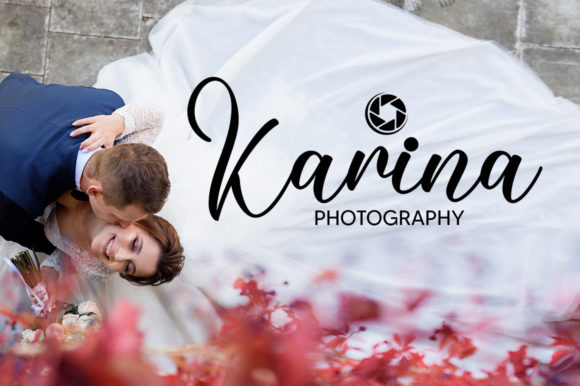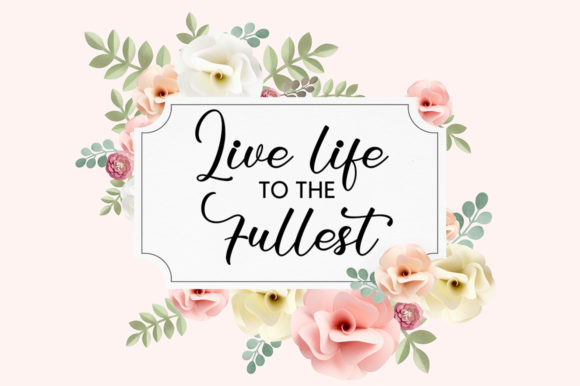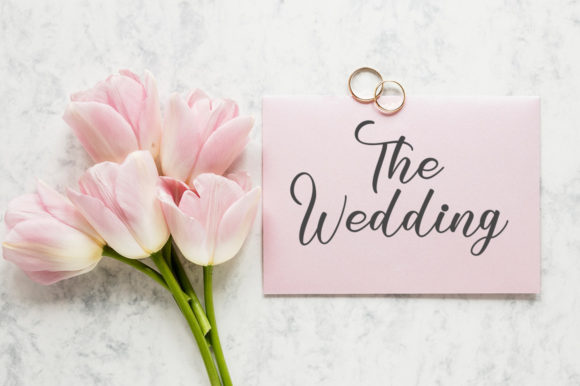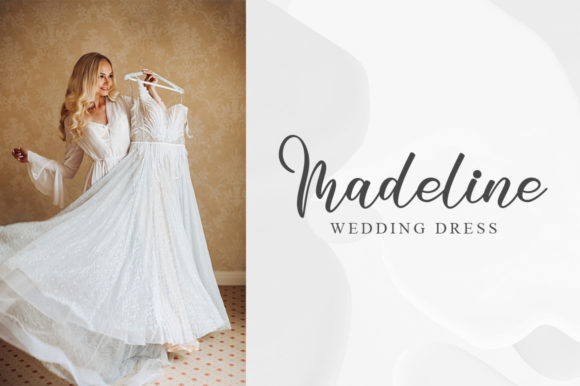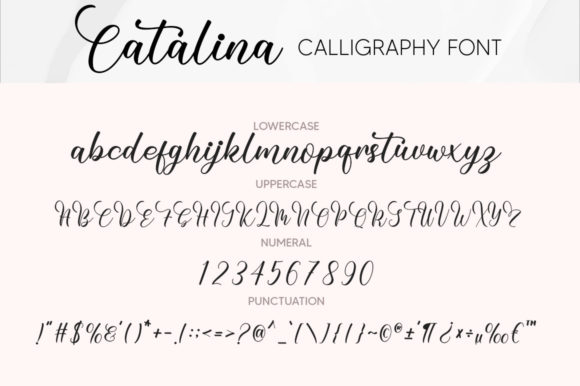
The Quest for the Perfect Font: Discovering Catalina
I still remember the design project that led me to fall in love with the Catalina font. I was working on a branding project for a small craft business, and I was struggling to find the right font to capture their playful yet elegant vibe. The client had a clear idea of what they wanted, but I was having a hard time finding a font that matched their vision. That was when I stumbled upon Catalina, and it was like a lightbulb went off in my head. The lovely, timeless handwritten font was perfect for creating eye-catching logos, branding, and quotes.
An Honest Review of Catalina
- ✨ Timeless charm: Catalina has a classic, elegant feel that never goes out of style.
- ✅ Versatility: This font is perfect for a wide range of design projects, from logos and branding to quotes and social media graphics.
- 💫 Readability: Catalina is easy to read, even at small sizes, making it perfect for body text or captions.
- 🎨 Customization options: With OpenType features and glyphs, you can customize Catalina to fit your design needs.
While Catalina is an amazing font, there are a few things to keep in mind:
- ⚠️ Limited use in very formal designs: Catalina is a handwritten font, so it may not be the best choice for very formal or corporate designs.
- 🤔 Kerning issues: As with any font, you may need to adjust the kerning to get the best results, especially when using all caps or mixing with other fonts.
The Story Behind Catalina
Catalina was designed by a talented font designer who wanted to create a font that captured the elegance and charm of handwritten writing. The font was inspired by classic calligraphy and lettering, with a modern twist. The result is a timeless, versatile font that’s perfect for a wide range of design projects.
Q: What is the best way to use Catalina in my designs?
A: Catalina is a versatile font that can be used in a wide range of design projects, from logos and branding to quotes and social media graphics.